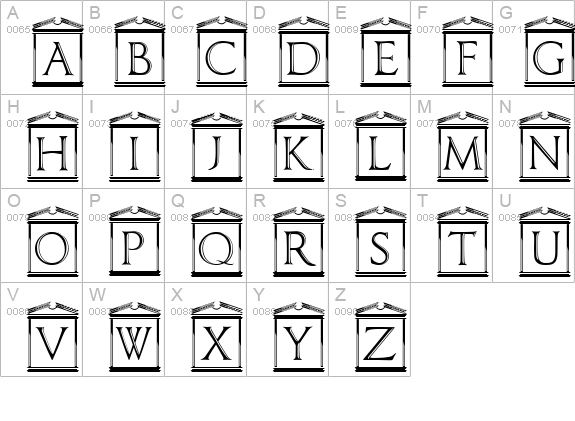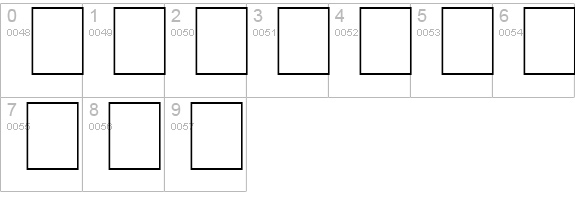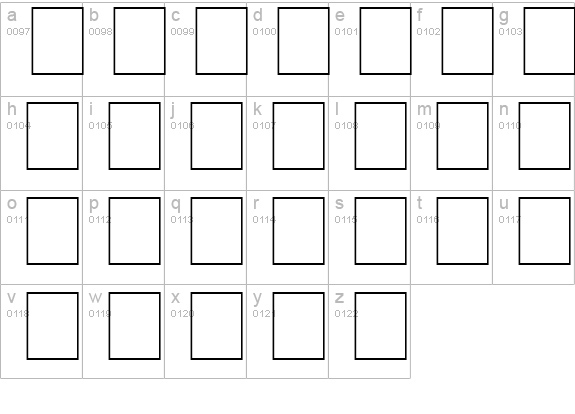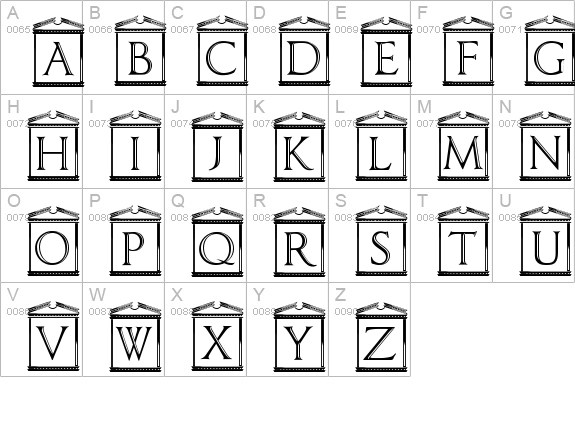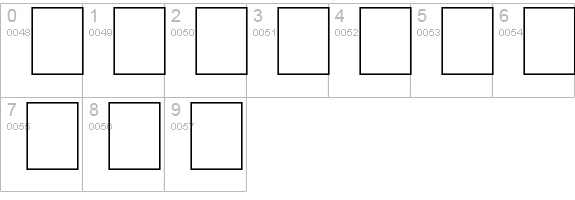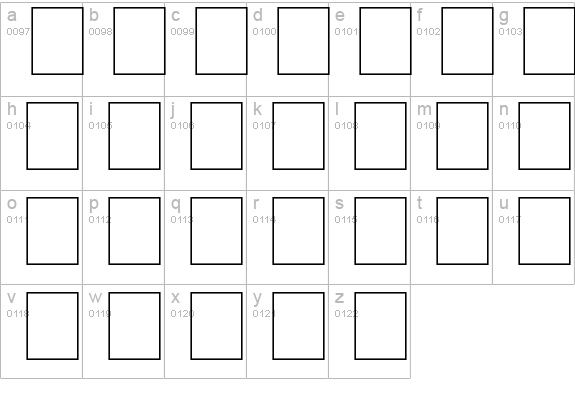
PaladinCapitals Font Details
PaladinCapitals font is a versatile and elegant typeface that exudes strength and sophistication. With its distinct and bold letterforms, this font is perfect for creating impactful headlines, logos, and titles that demand attention. The clean lines and sharp angles of PaladinCapitals font give it a modern and contemporary feel, making it suitable for a wide range of design projects. Whether you're designing a website, a magazine layout, or a branding campaign, this font will add a touch of class and professionalism to your work. One of the best things about PaladinCapitals font is that it is free. Yes, you read that right! This amazing font is freely available to download at FontsMarket.com. Now, you can enhance your designs without having to worry about breaking the bank. With PaladinCapitals font, you have the freedom to unleash your creativity and explore endless design possibilities. Its wide range of characters and glyphs allows you to experiment with different styles and create unique and eye-catching designs. Don't miss out on this incredible opportunity to elevate your design projects with PaladinCapitals font. Download it for free at FontsMarket.com and let your imagination run wild.